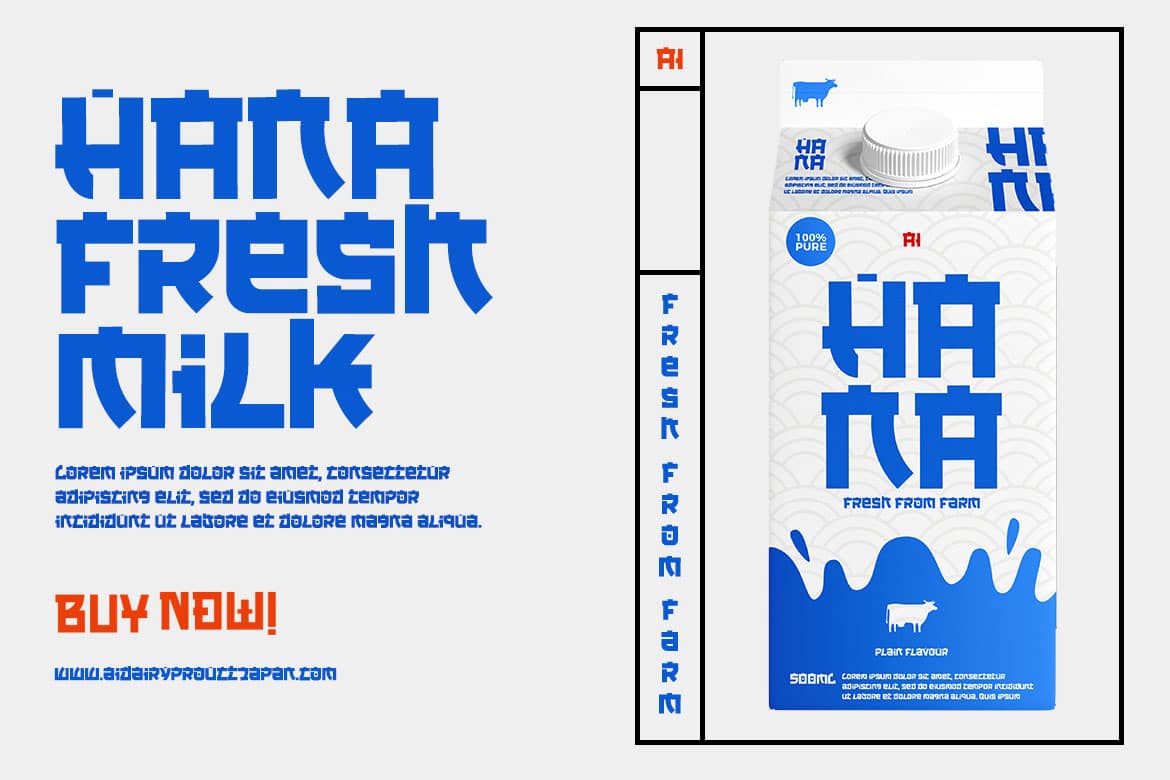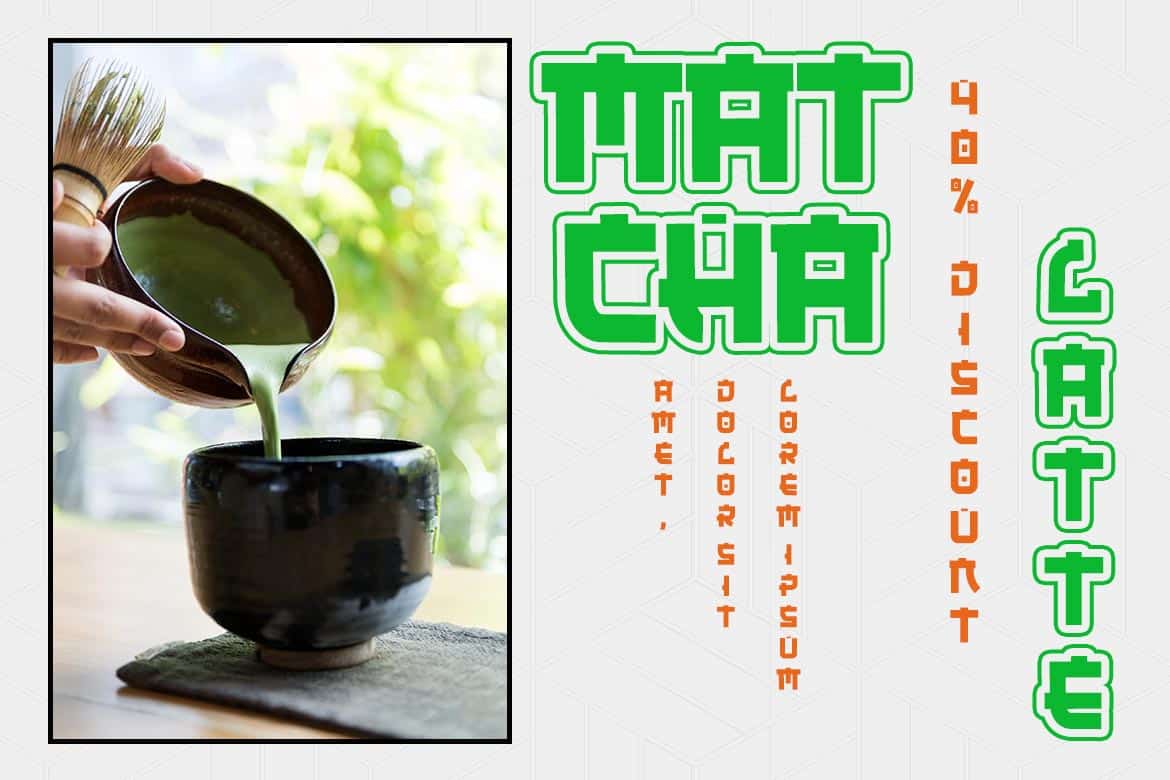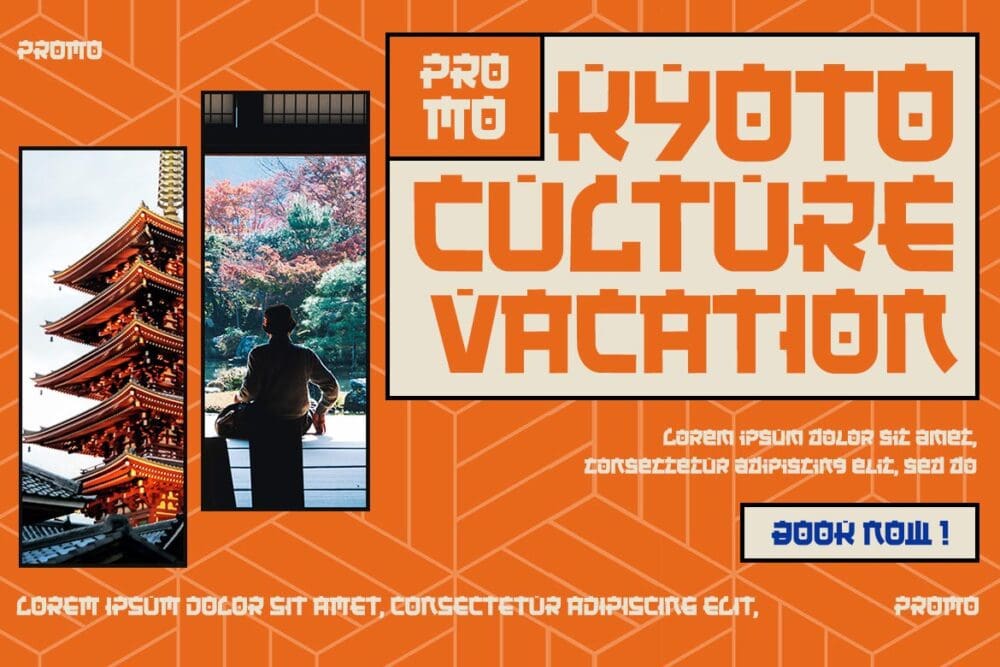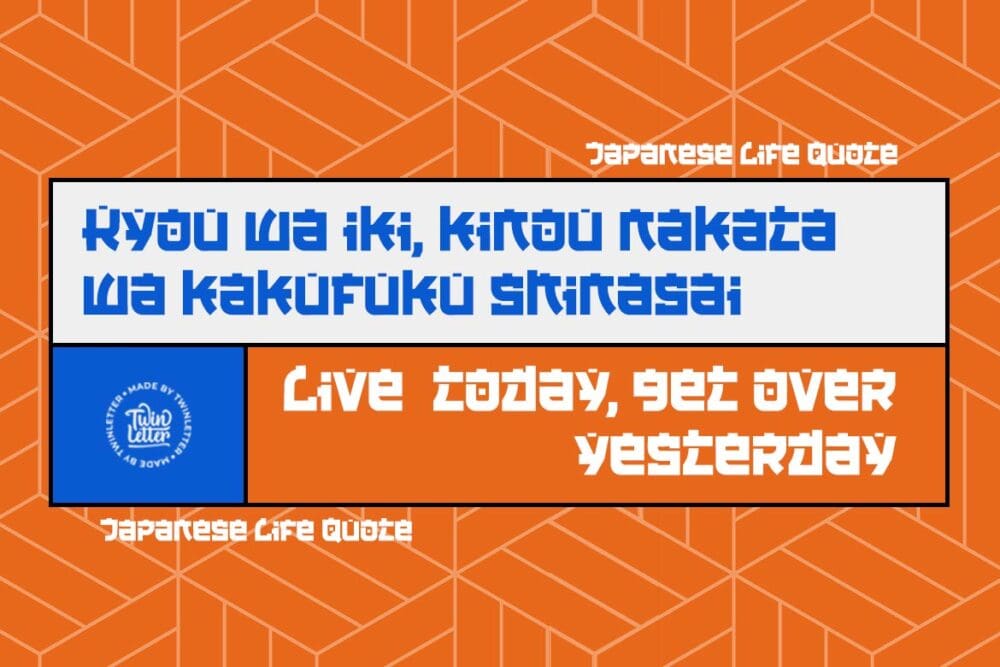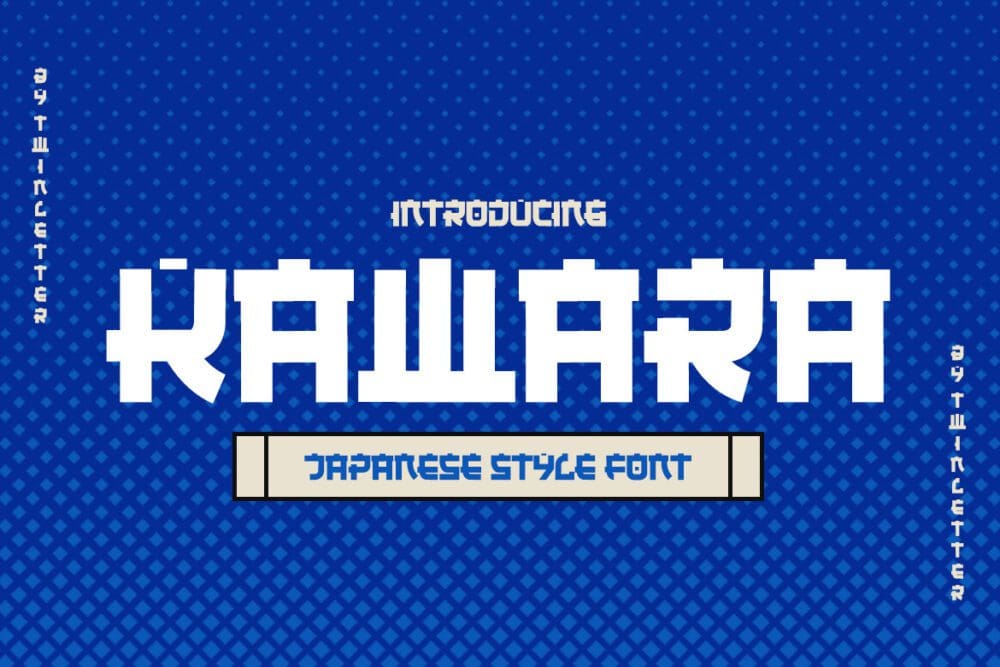
Kawara Font
Kawara Font. We produced this display font with a Japanese theme or an Asian font to fulfill the needs of your project with a Japanese theme, but it’s impossible to use an authentic Japanese font because not everyone understands Japanese letters, therefore we present this font as an intermediate alternative.